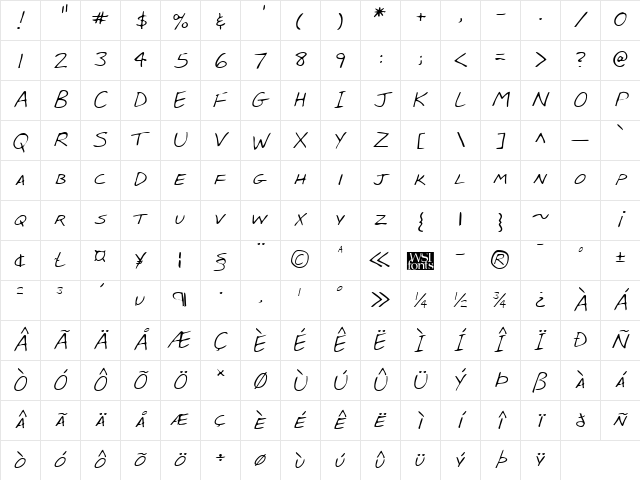
BabcocksHand Regular
Design Context for BabcocksHand
BabcocksHand flows with the natural rhythm of handwritten lettering, making it ideal for designs that call for warmth and personal expression.
Font Pairing: Combine BabcocksHand with a simple geometric sans for maximum contrast - the tension between flowing curves and clean structure is a classic typographic pairing.
Pro Tip: Use BabcocksHand for short runs of text - names, titles, or taglines. Extended body copy in script faces tires the eye quickly.